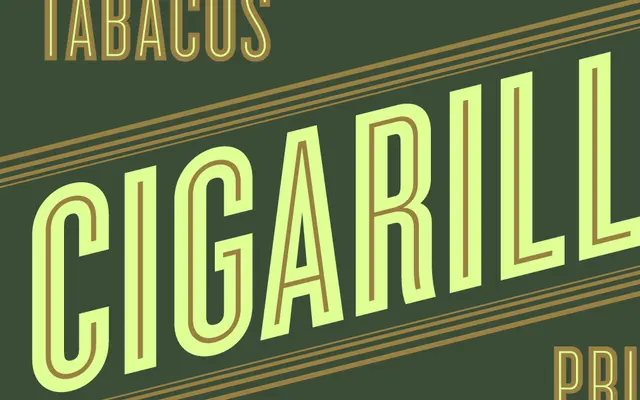
Cyclone
Hoefler & Co · Jonathan Hoefler · 2000
A high-contrast inline didone display from Jonathan Hoefler, built in layered cuts that revive the shaded letterforms of nineteenth-century playbills and banknotes.
A display family by Jonathan Hoefler that draws on the high-contrast, inline didones used on nineteenth-century playbills, currency engraving and certificates. Cyclone is built as a layered set so designers can stack colours and shadows to recreate the chromatic look of period letterpress. Intended for posters, packaging and editorial work where the typography is meant to be the ornament, not the messenger.
H&Co classify Cyclone as a multi-layered inline display, drawing on the high-contrast didone shaded letterforms that decorated nineteenth-century playbills, certificates and bank notes. Designed to be combined in layered colour settings.